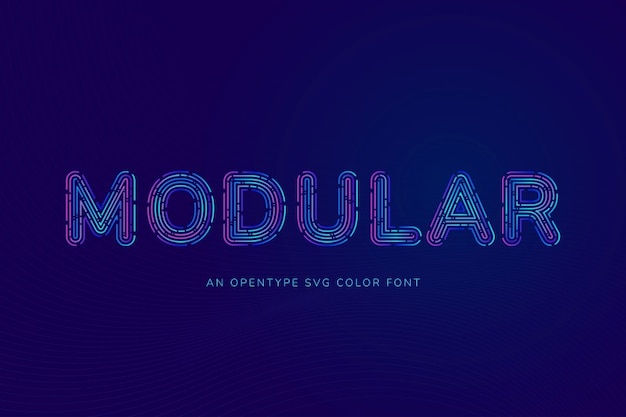
Modular Font
Are you in the mood for Modular? This futuristic, hi-tech style font made of outlines that simulate connections is for the daring ones. Use this OpenType SVG color font to make your projects stand out. Download it now!